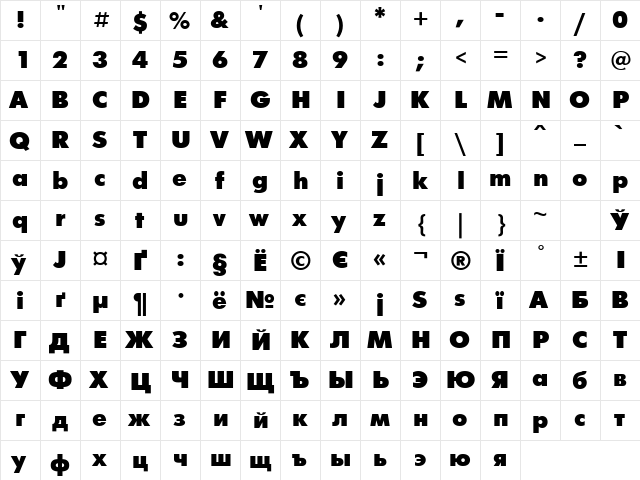
FuturisExtra Bold
Design Context for FuturisExtra Typeface
FuturisExtra has a distinctly futuristic character, with geometric precision and clean angles that feel at home in technology, gaming, and sci-fi contexts. The heavy weight commands attention and anchors typographic hierarchies.
Pro Tip: Use FuturisExtra in combination with a neutral sans for body text. Let it define the brand voice in headlines while keeping reading comfortable elsewhere.